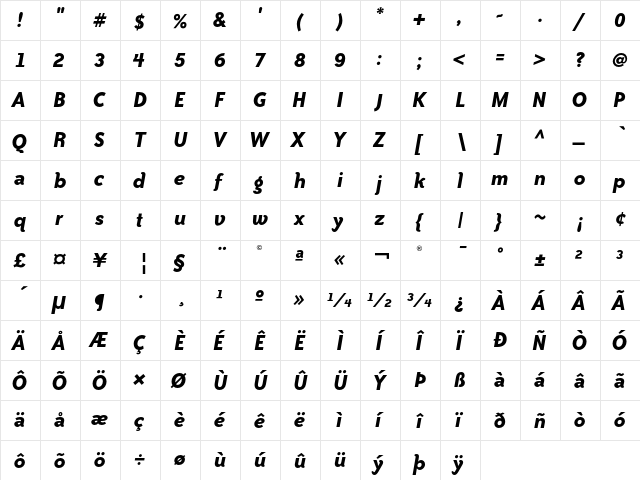
Bailey Sans ITC Bold Italic
Design Context for Bailey Sans ITC Typeface
Bailey Sans ITC offers clean, dependable letterforms without strong stylistic allegiance, making it a practical choice for designers who need flexibility. The slanted form adds forward momentum and visual energy. Its bold stroke weight gives it real presence on the page.
Pro Tip: Try Bailey Sans ITC for annotation and caption copy alongside an upright companion — the contrast in angle creates a dynamic but ordered typographic system.